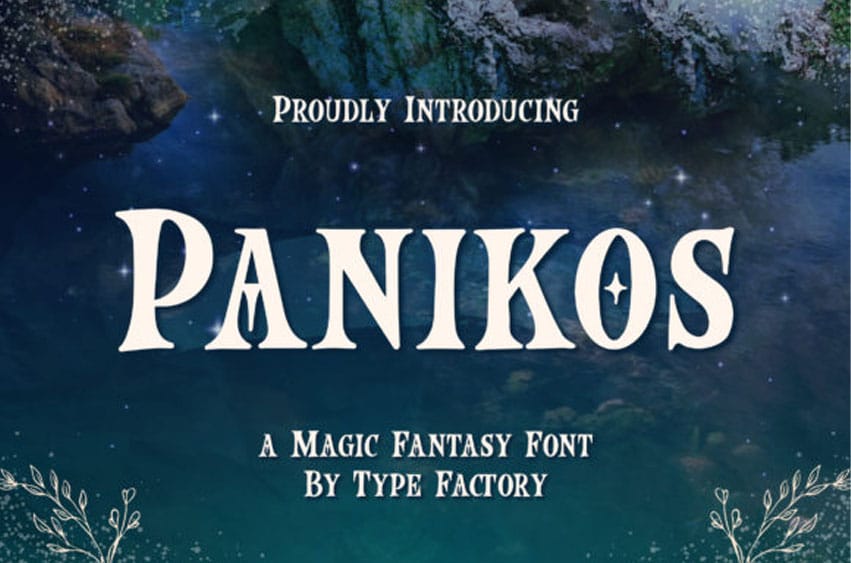
Panikos Font is a fantastic display font that will immediately transport you to the dream world of the fairies. Magical and a bit spooky, just like the fairies, it will be the ideal choice for any Halloween or party design you want to develop.